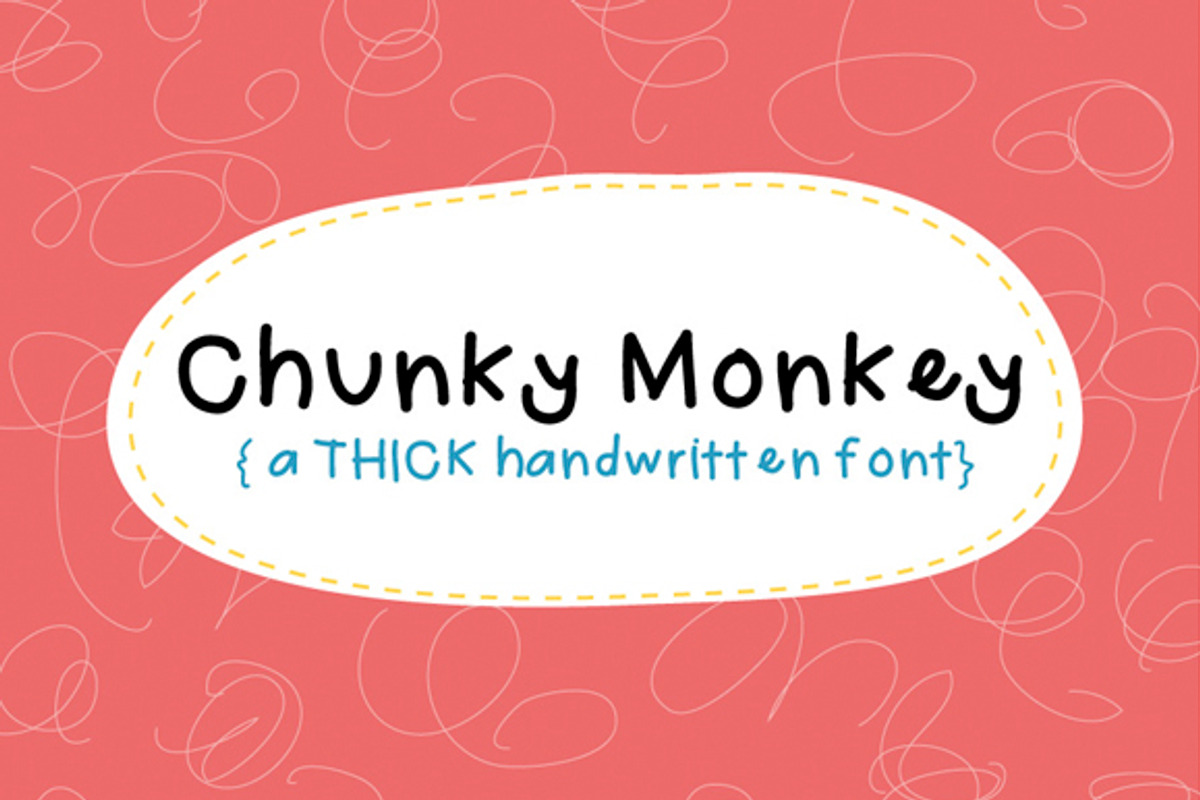
Chunky Monkey Hand Drawn Font
Chunky Monkey Hand Drawn Font by Kendra John is a font selected for branding, posters, packaging, typography.
Chunky Monkey Hand Drawn Font by Kendra John fits naturally into Branding, posters, packaging, typography.